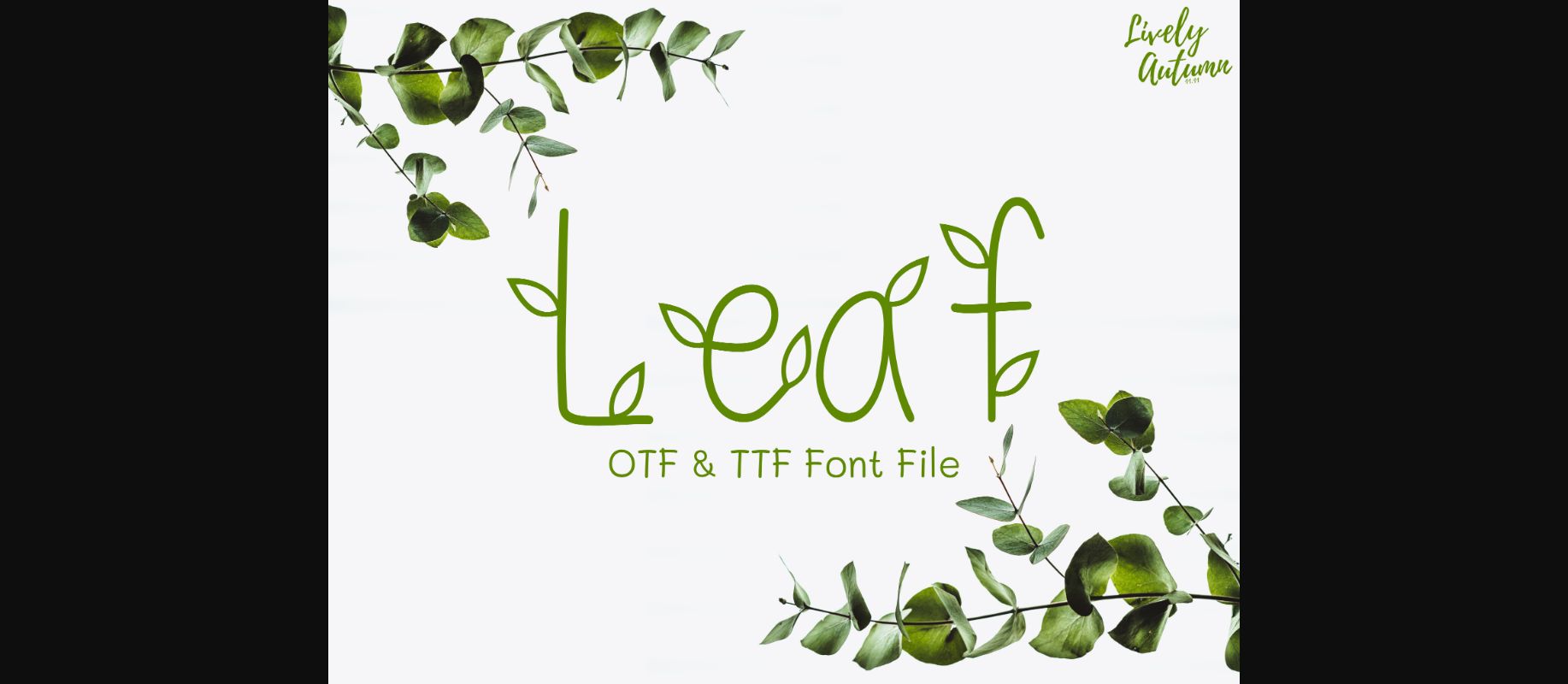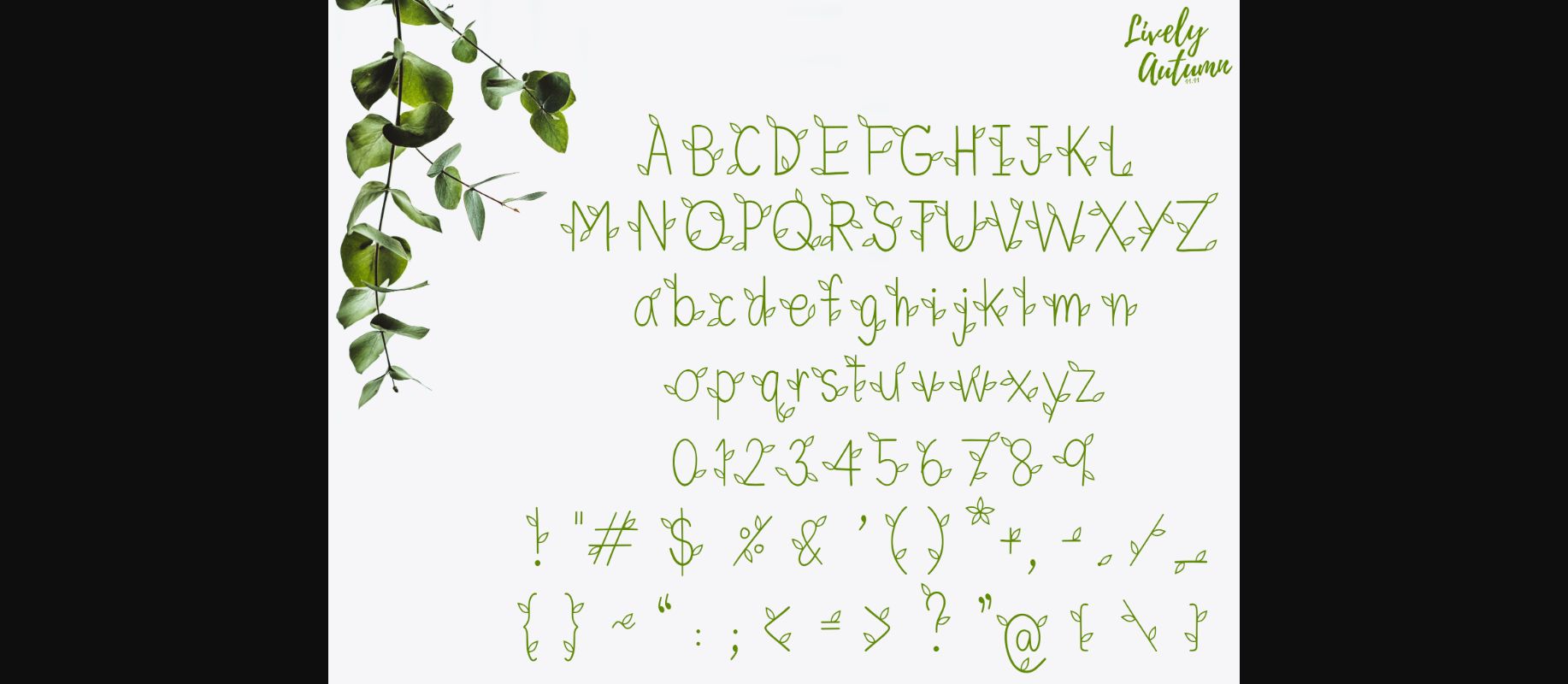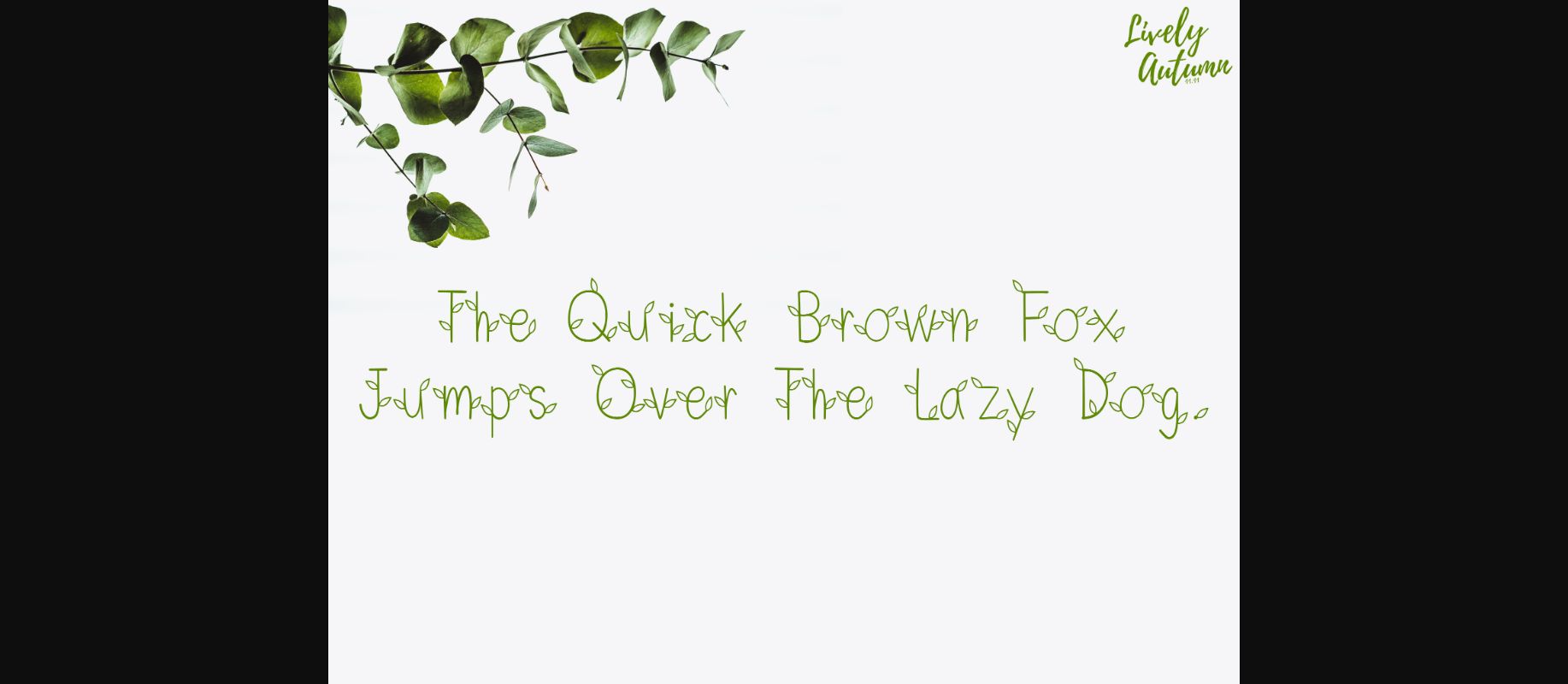
Leaf Font is a fancy decorative font. They are adorned with leaf decorations on the characters. This font is perfect for your nature-themed projects and much so much more.